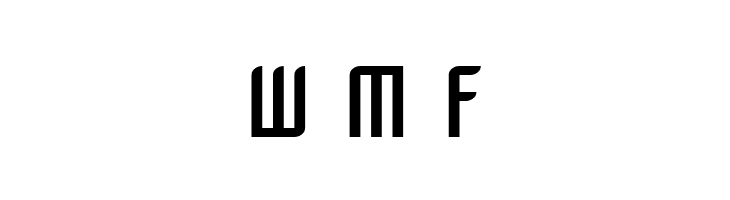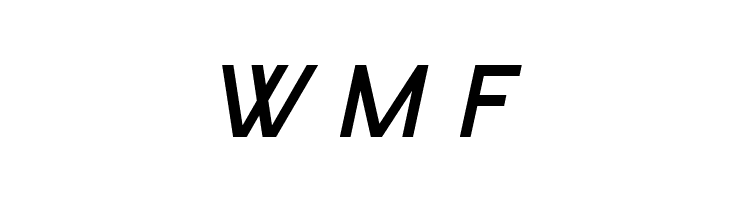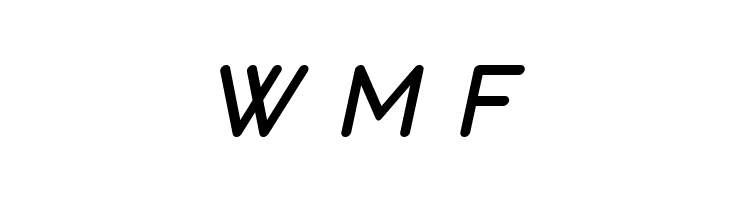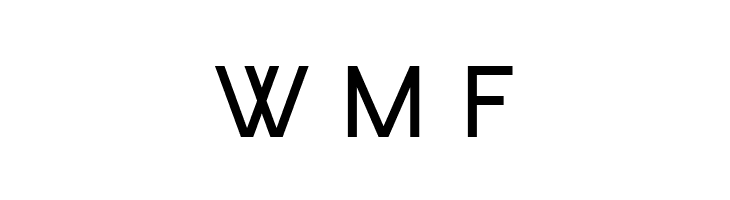
A modern, geometric sans-serif font with clean lines and balanced proportions.
A modern, italic font with smooth, consistent strokes and a dynamic appearance.
A bold, italic font with modern, dynamic letterforms.
Bold and italic font with a modern, dynamic style.
A modern, italicized font with sleek, dynamic characters.
A bold, geometric font with a modern, digital aesthetic.